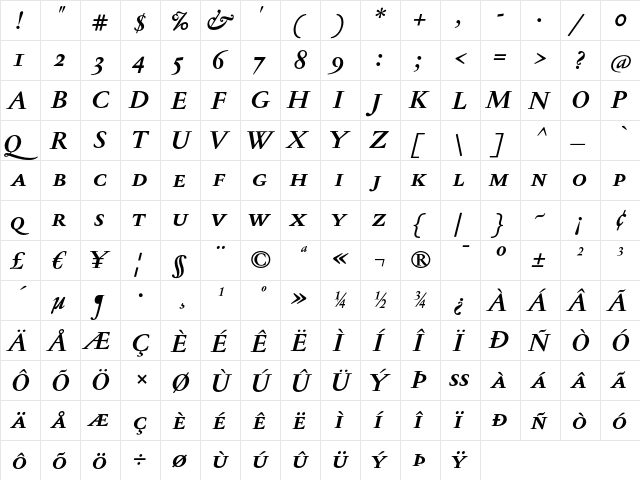
Jannon Text Med SC Bold Italic Font Preview
| Foundry | Frantisek Storm, stormtype.com |
Design Context for Jannon Text Med SC Typeface
Jannon Text Med SC offers clean, dependable letterforms without strong stylistic allegiance, making it a practical choice for designers who need flexibility. The dynamic lean of this cut emphasises speed and emphasis in any layout. Its bold stroke weight gives it real presence on the page.
Pro Tip: Try Jannon Text Med SC for annotation and caption copy alongside an upright companion — the contrast in angle creates a dynamic but ordered typographic system.